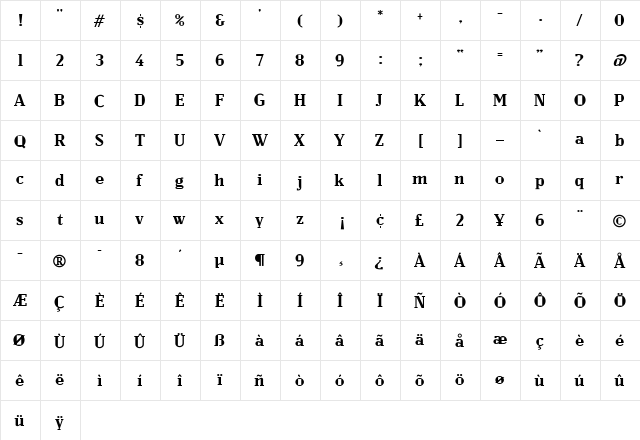
Zenith Medium Font Preview
Zenith Medium
Zenith Medium Font Details
Design Context for Zenith Typeface
Zenith takes a measured approach to typography — its balanced proportions and neutral character make it a reliable workhorse for both digital and print work.